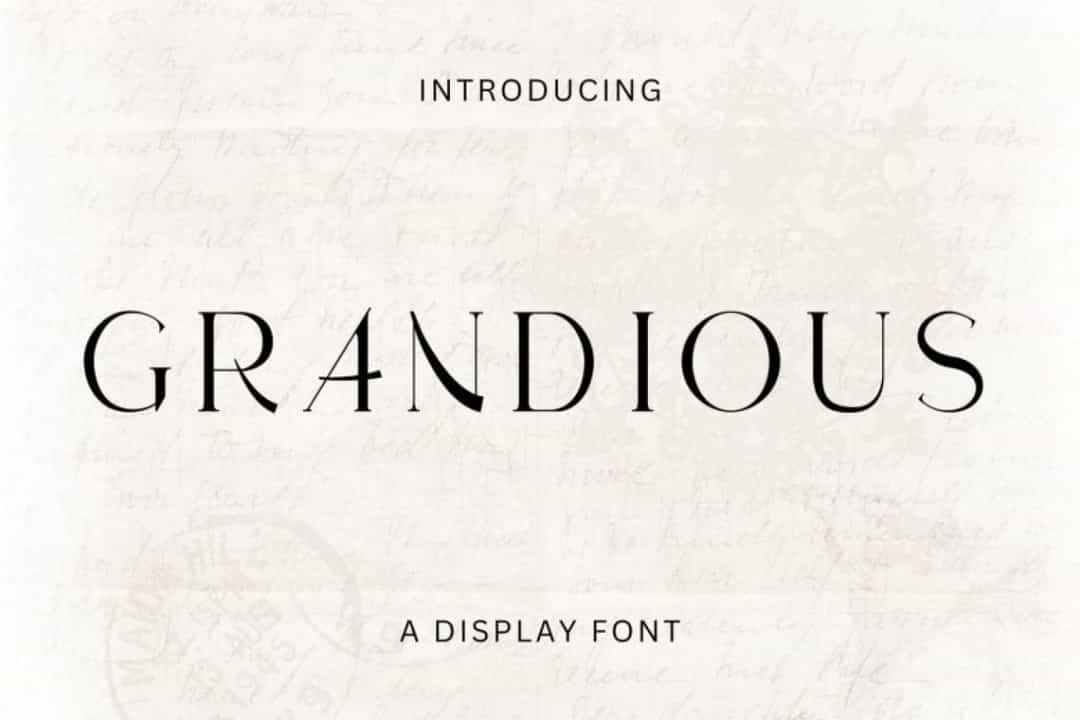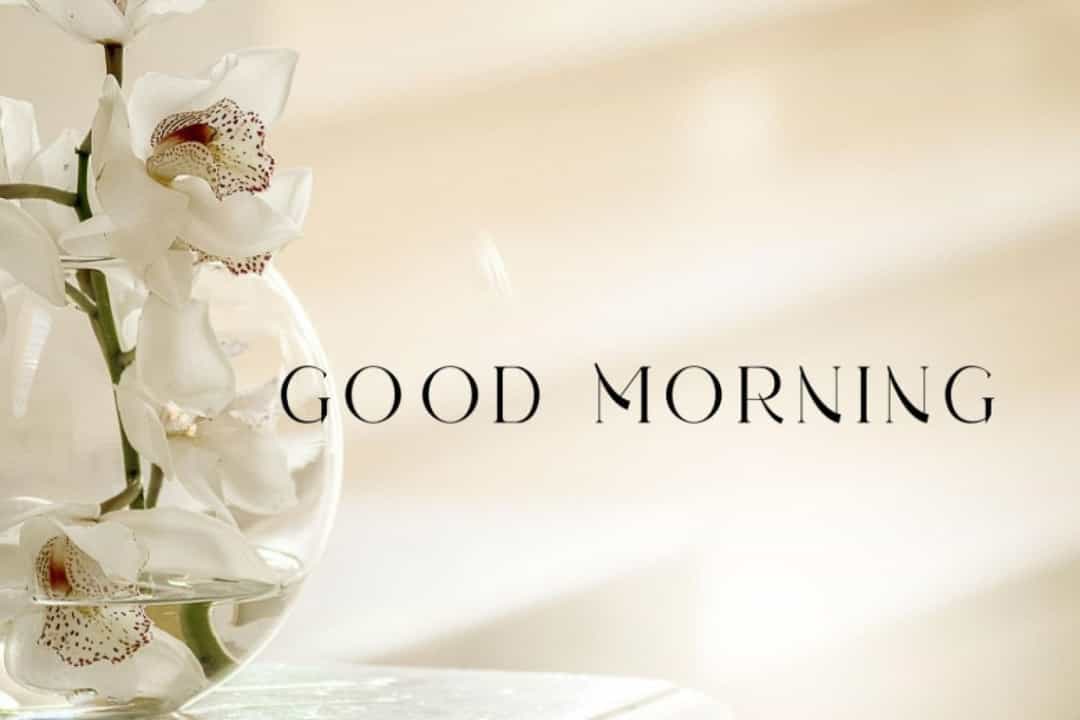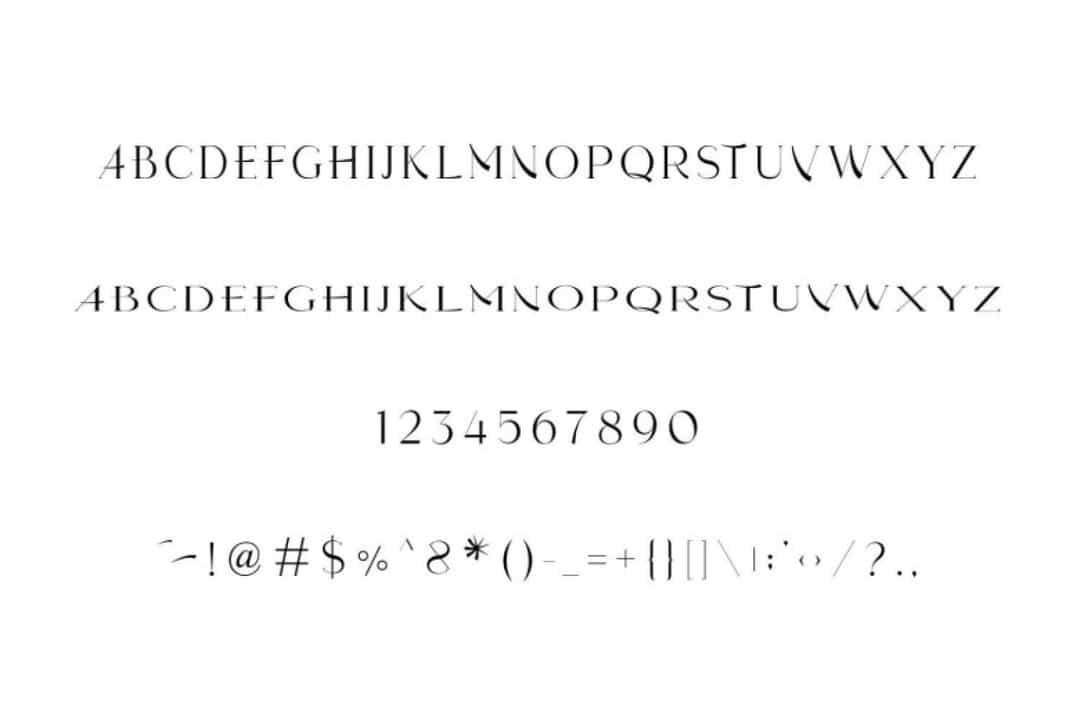
Grandious is an exquisite serif typeface with timeless grace and bold beauty that stands the test of time. Perfect for headlines, logos and advertisements to create eye-catching features as a display serif of pure joy, its clean lines and flexible nature add elegance and style to any design, large or small.